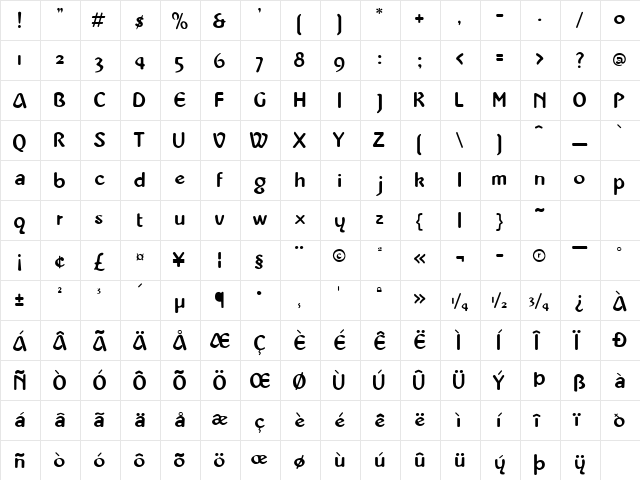
AbbotDemi Regular
Design Context for AbbotDemi Typeface
AbbotDemi is a composed and adaptable typeface that performs quietly and consistently across a wide range of design contexts.